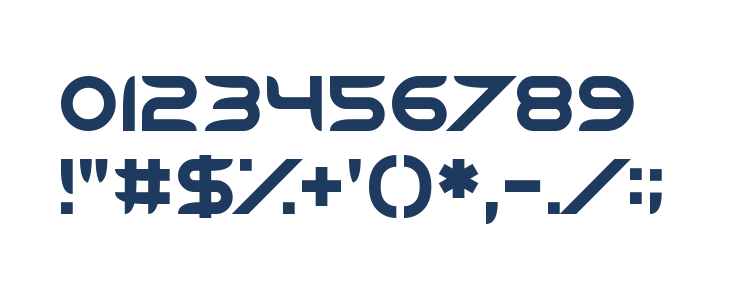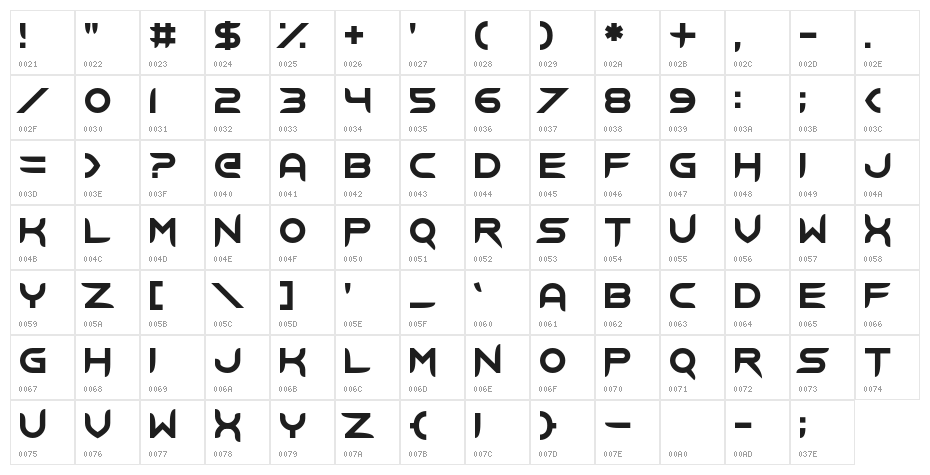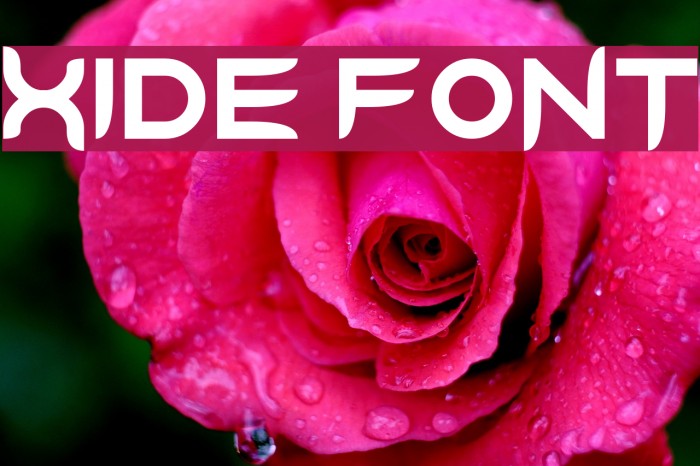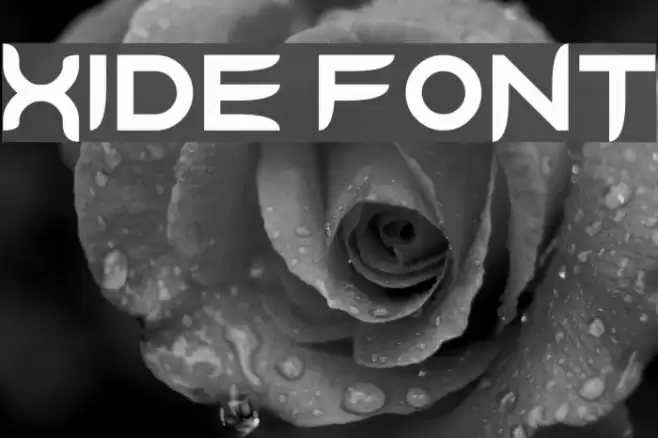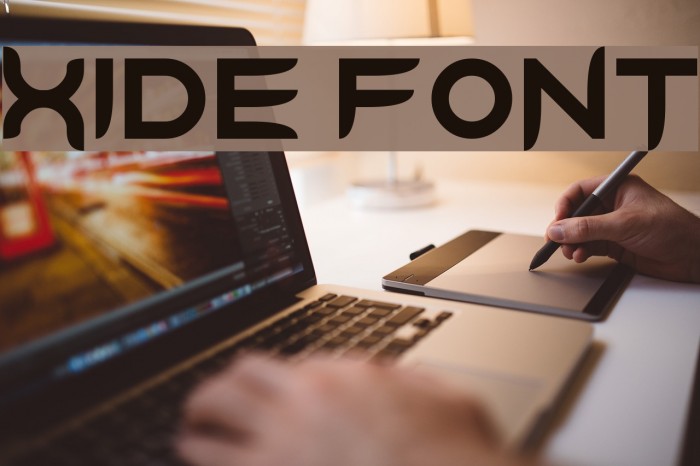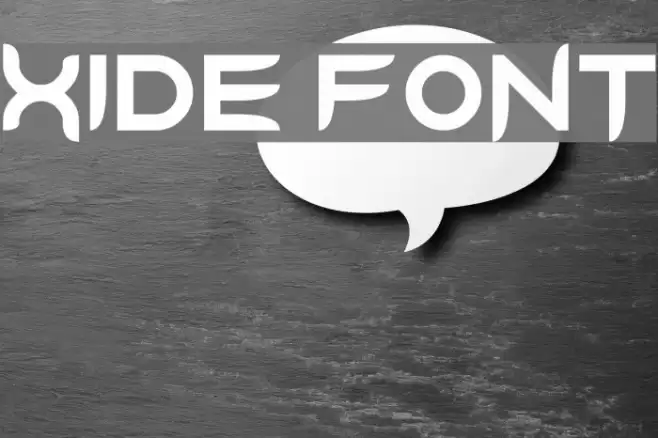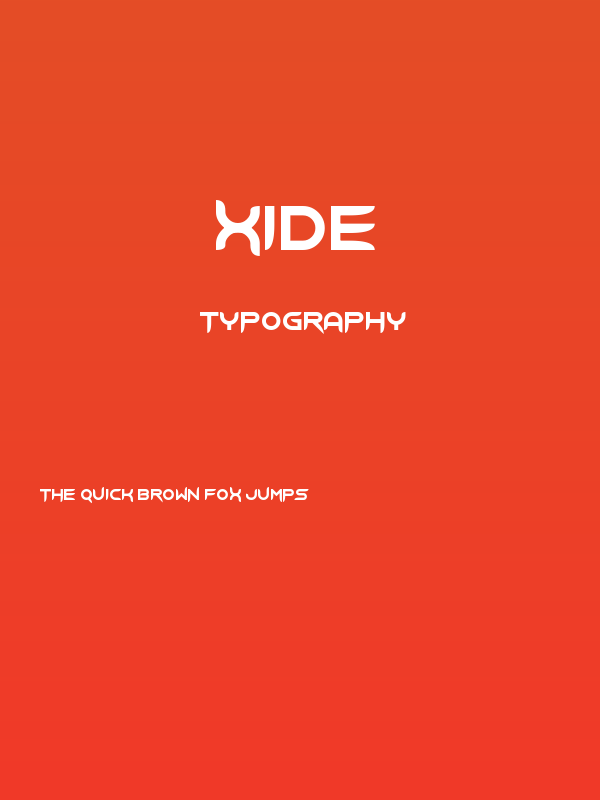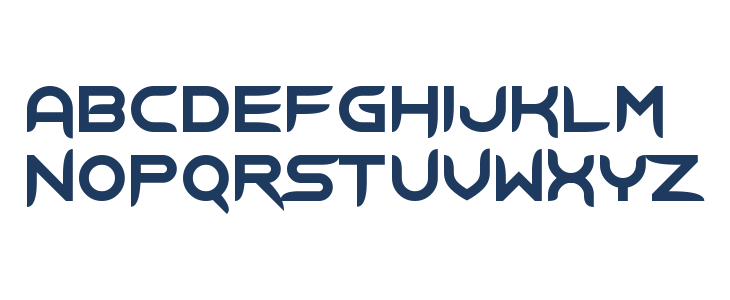
Xide Font
Xide Description
This font features a futuristic and geometric design with sharp angles and clean lines. The characters are bold and have a unique cut-out style that gives them a modern and edgy appearance. The uppercase and lowercase letters maintain a consistent style, with the lowercase mirroring the uppercase in form but slightly reduced in size. Numbers and special characters follow the same design principles, ensuring uniformity across all glyphs. The font's distinct look makes it suitable for projects that require a contemporary and innovative feel.
| Proposed Projects | Ideal for technology branding, sci-fi themed designs, video game interfaces, and modern advertising campaigns. |